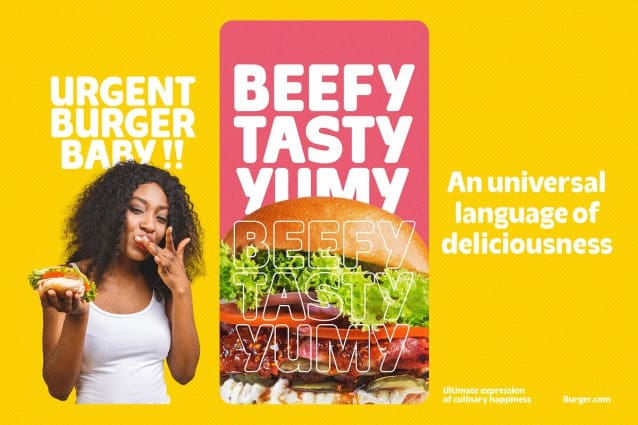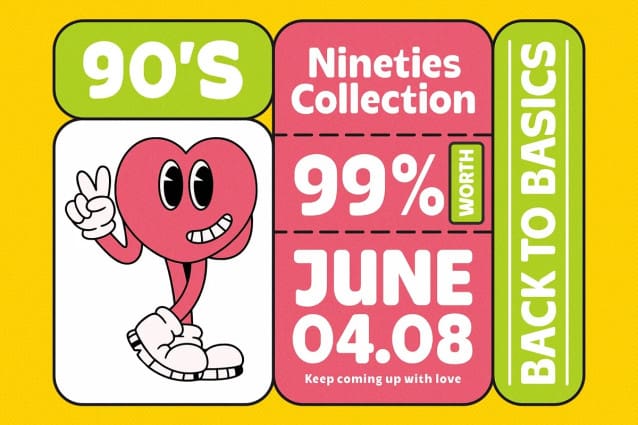
Cartenz Font
Cartenz Font, brings a comfortable and approachable feel to any design. Its sleek lines and curved edges exude a modern minimalist style, offering versatility in a variety of applications. Whether it’s branding, marketing materials or creative presentations.